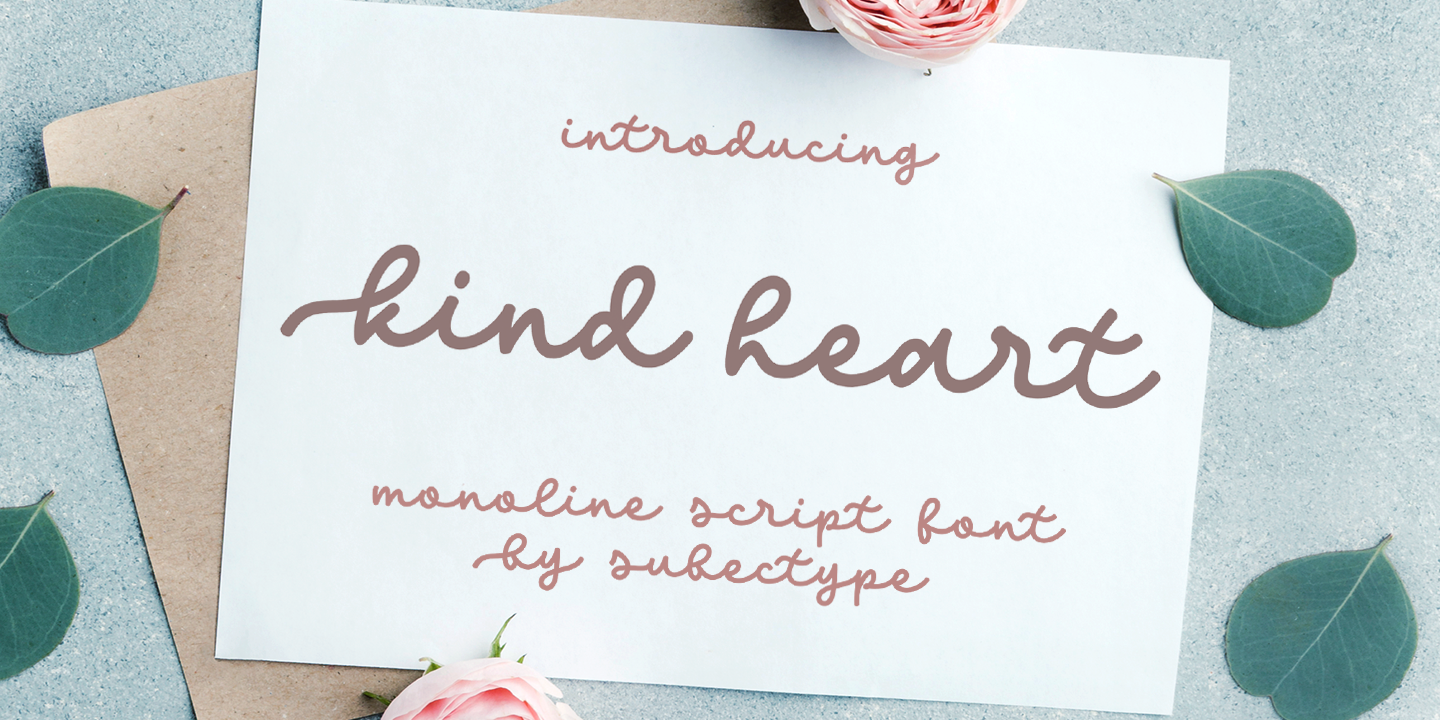
The Kind Heart Font excels in various design applications including charitable organization branding, compassionate healthcare communications, gentle wellness center signage, heartfelt greeting card designs, loving family service identities, caring community center materials, warm nonprofit promotions, tender childcare facility marketing, gentle therapy practice communications, and heartwarming social projects that demand compassionate elegance and caring sophistication.
What makes the Kind Heart Font exciting is its beautiful embodiment of compassion and gentle kindness through letterforms that capture the essence of caring hearts and the warm spirit of human compassion. This typeface demonstrates exceptional warmth through carefully crafted characters that suggest the gentle embrace of loving care, the soft comfort of understanding hearts, and the nurturing quality that defines genuine kindness and compassionate service. The font's caring personality makes it perfect for healthcare organizations and charitable institutions seeking to communicate heartfelt compassion, gentle care, and the kind of loving kindness that creates healing connections through typography that literally radiates with warm-hearted sincerity.
The Kind Heart Font family typically includes gentle weight variations that enhance the compassionate aesthetic, featuring soft styling options and extended character sets optimized for caring communications and heartfelt applications. These family options often include heart-inspired alternates, caring symbols, and compassionate decorative elements that provide designers with comprehensive tools for creating authentically kind typography that celebrates human compassion while maintaining contemporary design appeal and professional healthcare credibility.
Healthcare professionals and charitable organizations consistently select Kind Heart Font Free Download for projects requiring typography that communicates genuine compassion and caring excellence. This typeface delivers exceptional performance in healthcare marketing, charitable branding, and compassionate communications where establishing trust and demonstrating heartfelt care is essential for community support. The font's caring character makes it particularly effective for therapy and childcare applications. Download Kind Heart Font Free Download today to access this compassionate typeface that transforms caring communications with its gentle warmth and heartfelt sophistication, creating compelling healing experiences that honor the magnificent power of human kindness while celebrating the gentle strength that defines truly compassionate care and loving service.